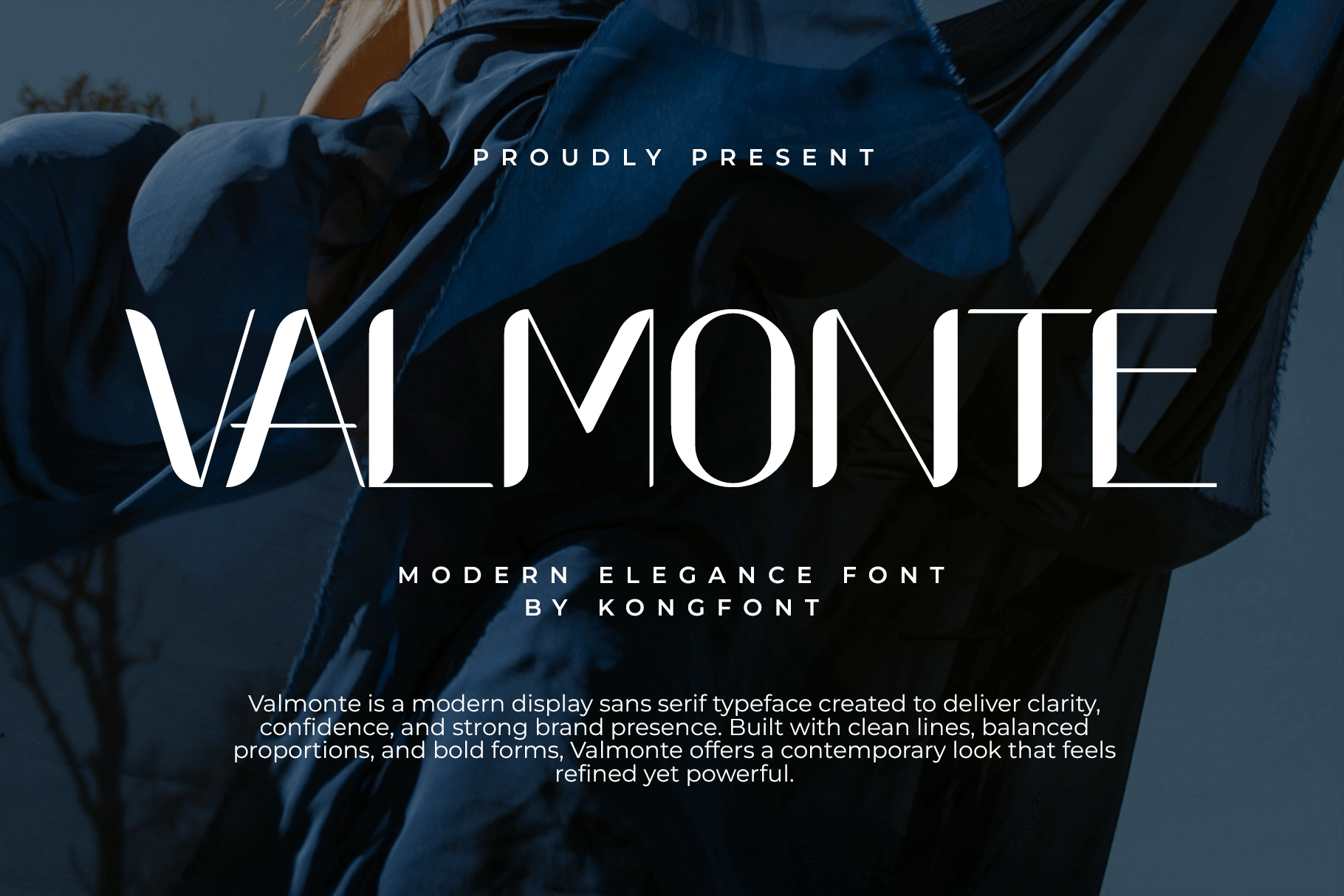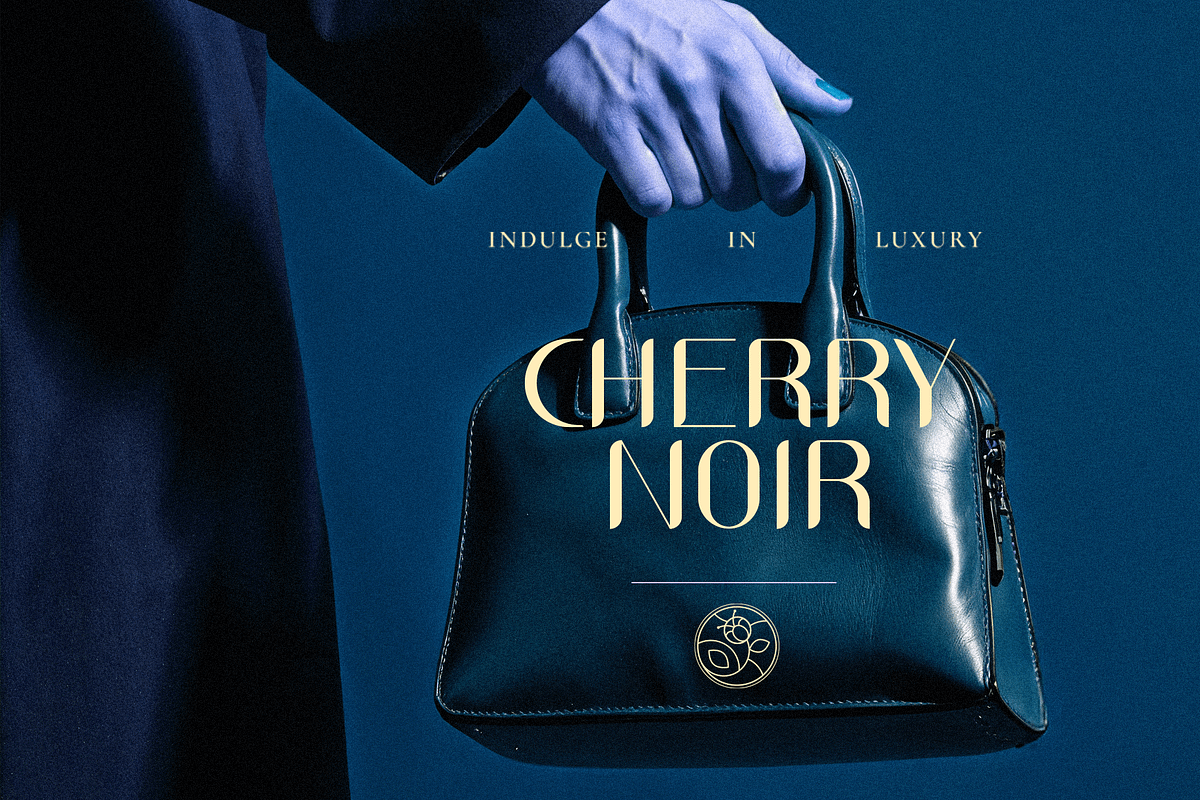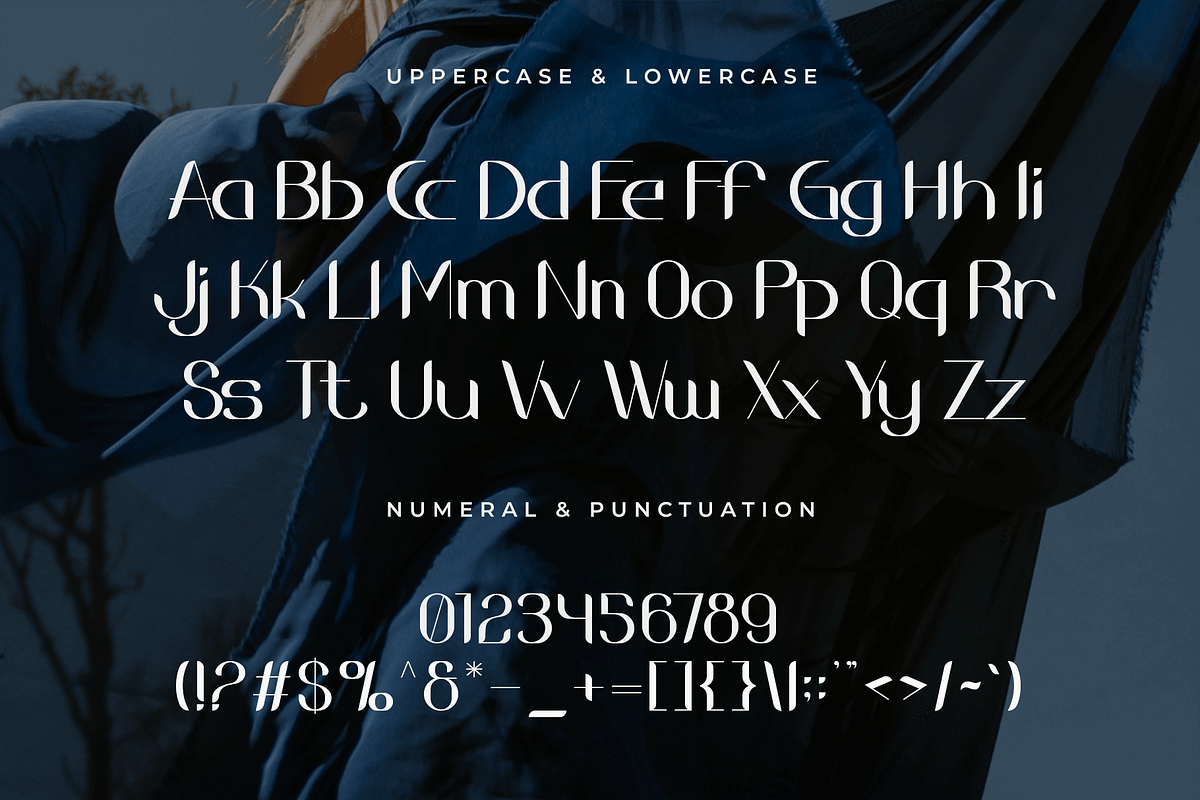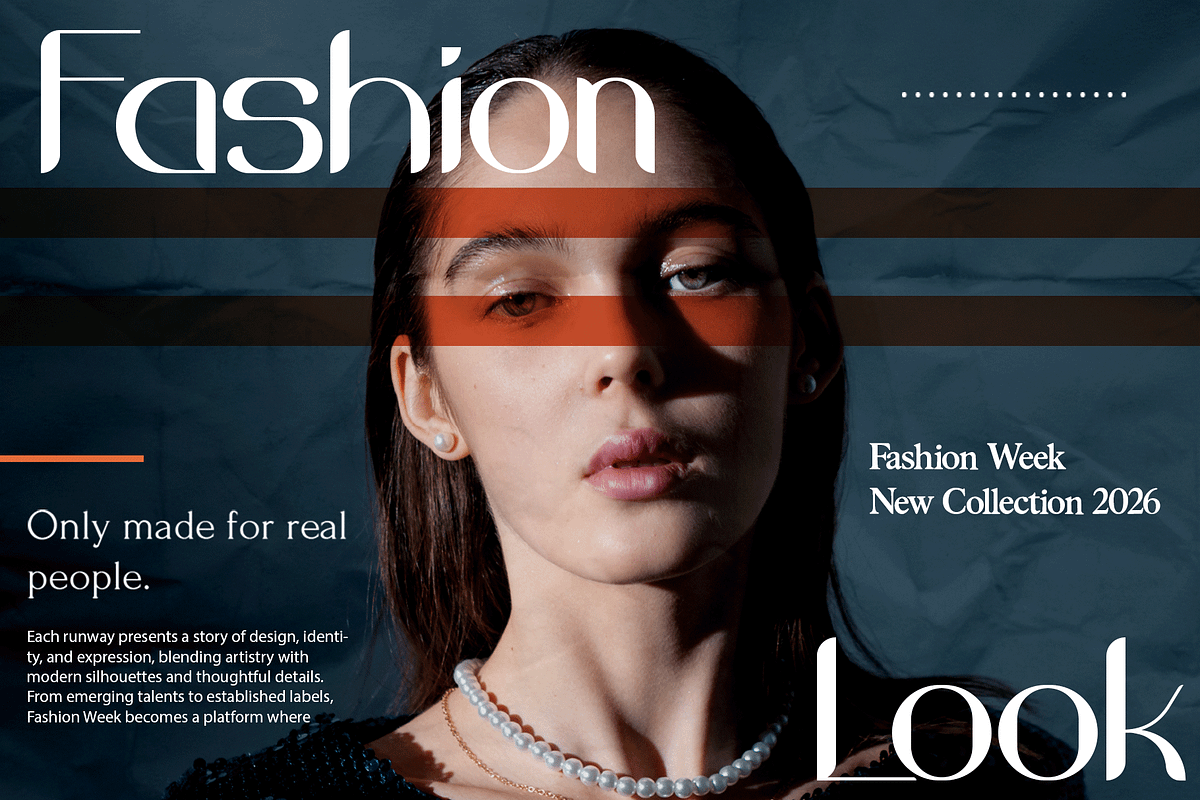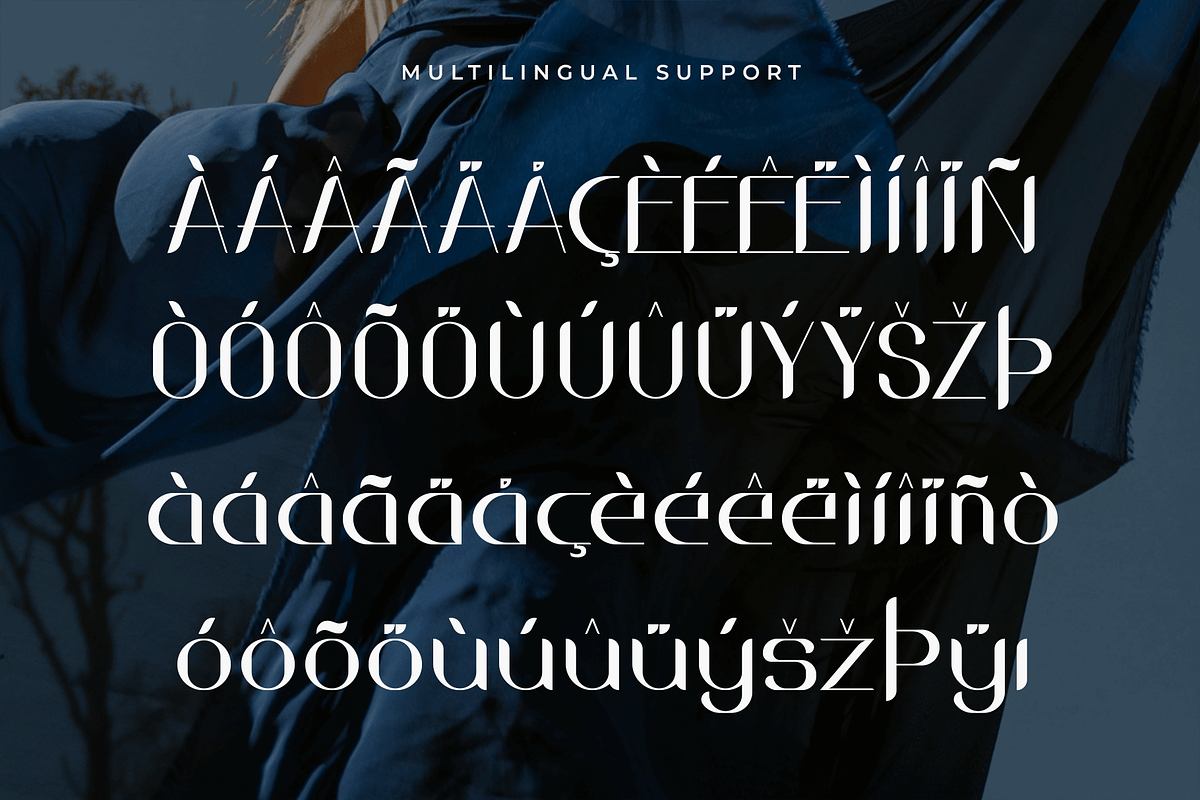
Valmonte - Modern Elegance Font
Introducing Valmonte, a modern elegance font crafted to deliver sophistication, balance, and graceful clarity. With its clean lines, refined proportions, and subtle detailing, Valmonte embodies modern minimalism wrapped in timeless elegance perfect for premium and contemporary design projects.
Valmonte includes uppercase and lowercase letters, numerals, punctuation, and multilingual support, providing versatility for global creative needs. Whether you’re creating a luxury brand identity, an editorial headline, or refined promotional materials, Valmonte enhances your work with confidence and modern elegance.
Design with refined beauty Valmonte is the modern elegance font made for sophisticated visual storytelling.